9 Clean Sans Serif Fonts for Business and Startup Design
If you’ve ever stared at a pitch deck or brand brief wondering why the typography feels off, you already know the power of a clean sans serif font. These typefaces cut through the noise—crisp on screens, sharp in print, and professional enough for investor decks or client proposals.
I spend a lot of time in Creative Fabrica’s font library while mocking up startup visuals and business collateral. The clean sans serif fonts there consistently deliver what founders and designers actually need: legibility at small sizes, strong presence in headlines, and full commercial licensing without the usual headaches.
Here are 9 standout options that consistently rise to the top for business and startup work.
9 Clean Startup Fonts for Logos, Websites, and Branding
1. Alacrity Sans
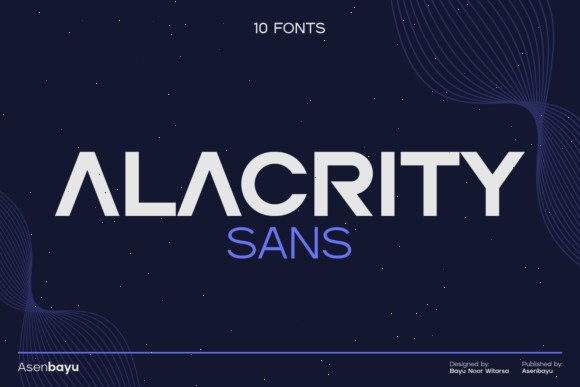
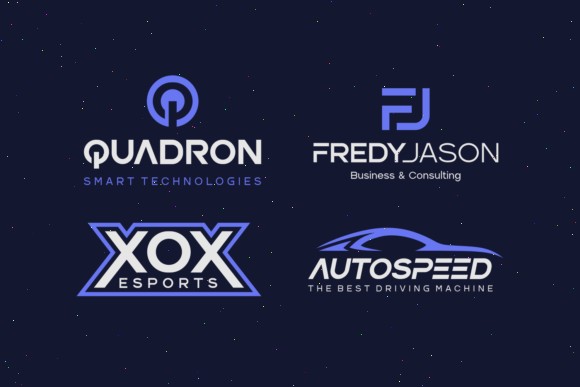
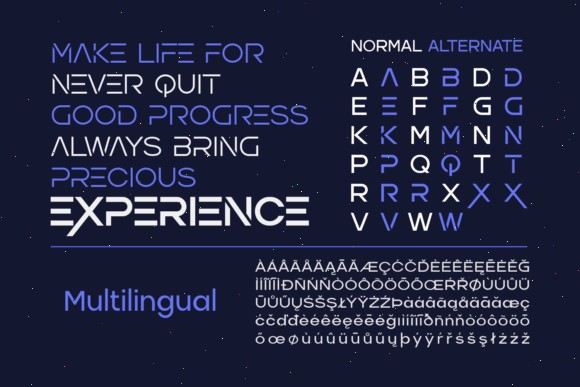
Best for
- SaaS startups
- fintech platforms
- technology brands
- UI design
- modern websites
Why it works
Alacrity Sans combines geometric styling with strong readability, making it useful for both branding and interface design. The multiple font weights also help create clean typography hierarchy across websites, presentations, and apps.
Potential drawbacks
Its futuristic appearance may feel too modern for traditional industries.
2. Kolor
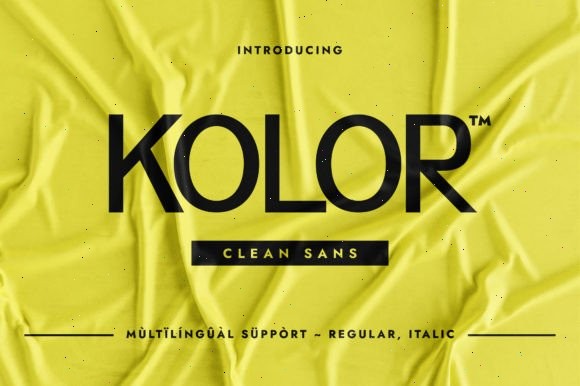
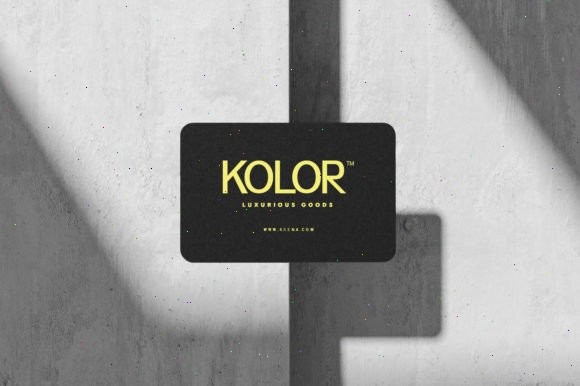
Best for
- startup branding
- web interfaces
- digital agencies
- product design
- minimalist websites
Why it works
Kolor has a clean geometric structure that performs especially well in UI layouts and startup branding. It feels modern without becoming overly stylized.
Potential drawbacks
The minimalist style can feel slightly generic without strong supporting branding.
3. Origo Pro
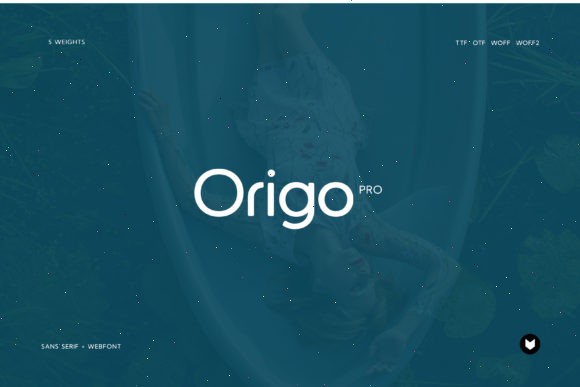
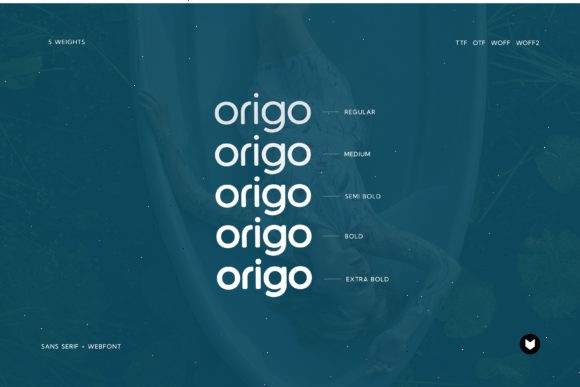
Best for
- corporate branding
- consulting firms
- business presentations
- editorial layouts
- professional websites
Why it works
Origo Pro is highly versatile and easy to use across both print and digital projects. The multiple weights make it ideal for professional branding systems.
Potential drawbacks
It prioritizes flexibility over visual personality.
4. Estgoon
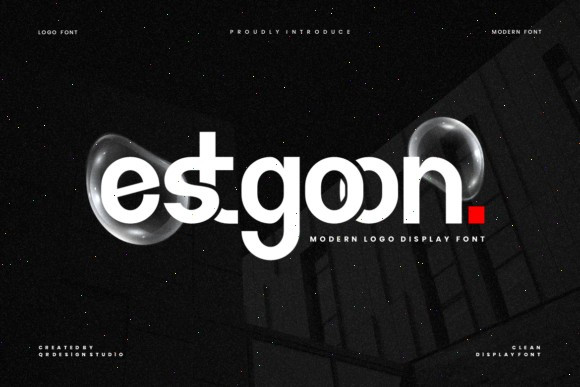
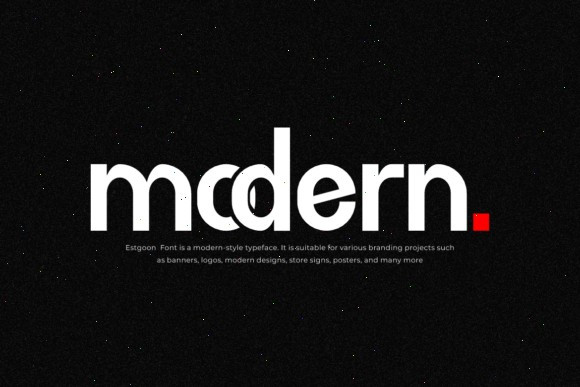
Best for
- startup logos
- esports branding
- creative agencies
- tech companies
- digital products
Why it works
Estgoon adds distinctive character shapes that help logos and headlines feel more custom and memorable.
Potential drawbacks
Less suitable for long-form text and smaller UI elements.
5. Pioneer
Best for
- creative studios
- architecture firms
- portfolio websites
- minimalist branding
- lifestyle brands
Why it works
Pioneer balances geometric styling with softer curves, helping brands feel modern but approachable.
Potential drawbacks
May feel too subtle for bold advertising campaigns.
6. Menko
Best for
- startup headlines
- advertising campaigns
- sports branding
- tech companies
- bold logo systems
Why it works
Menko creates strong visual impact with its bold all-caps structure and clean modern proportions.
Potential drawbacks
The heavy styling can become overwhelming when overused.
7. Rushtime
Best for
- promotional graphics
- social media campaigns
- digital advertising
- packaging design
- startup marketing
Why it works
Rushtime stays highly readable even in bold display layouts and mobile advertising formats.
Potential drawbacks
Works better as a display font than a full branding typeface.
8. Sancury
Best for
- gaming brands
- creative startups
- futuristic branding
- apparel graphics
- visual campaigns
Why it works
Sancury has compressed geometric styling that immediately creates a strong visual identity.
Potential drawbacks
Smaller text readability is weaker compared to more traditional sans serif fonts.
9. Mateka
Best for
- boutique businesses
- creative branding
- blogs
- invitations
- editorial projects
Why it works
Mateka blends clean sans serif structure with a softer editorial feel, making it useful for creative businesses.
Potential drawbacks
Less effective for strict corporate or enterprise branding.
Are geometric sans serif fonts good for logos?
Yes. Geometric sans serif fonts often create strong, memorable logos with clean shapes and balanced proportions.
Which clean sans serif font is best for professional business branding?
u003ca href=u0022https://fontiverse.com/?p=9036u0026amp;preview=true#3-origo-prou0022u003eOrigo Prou003c/au003e is one of the safest professional options because it works well across presentations, websites, and print materials.